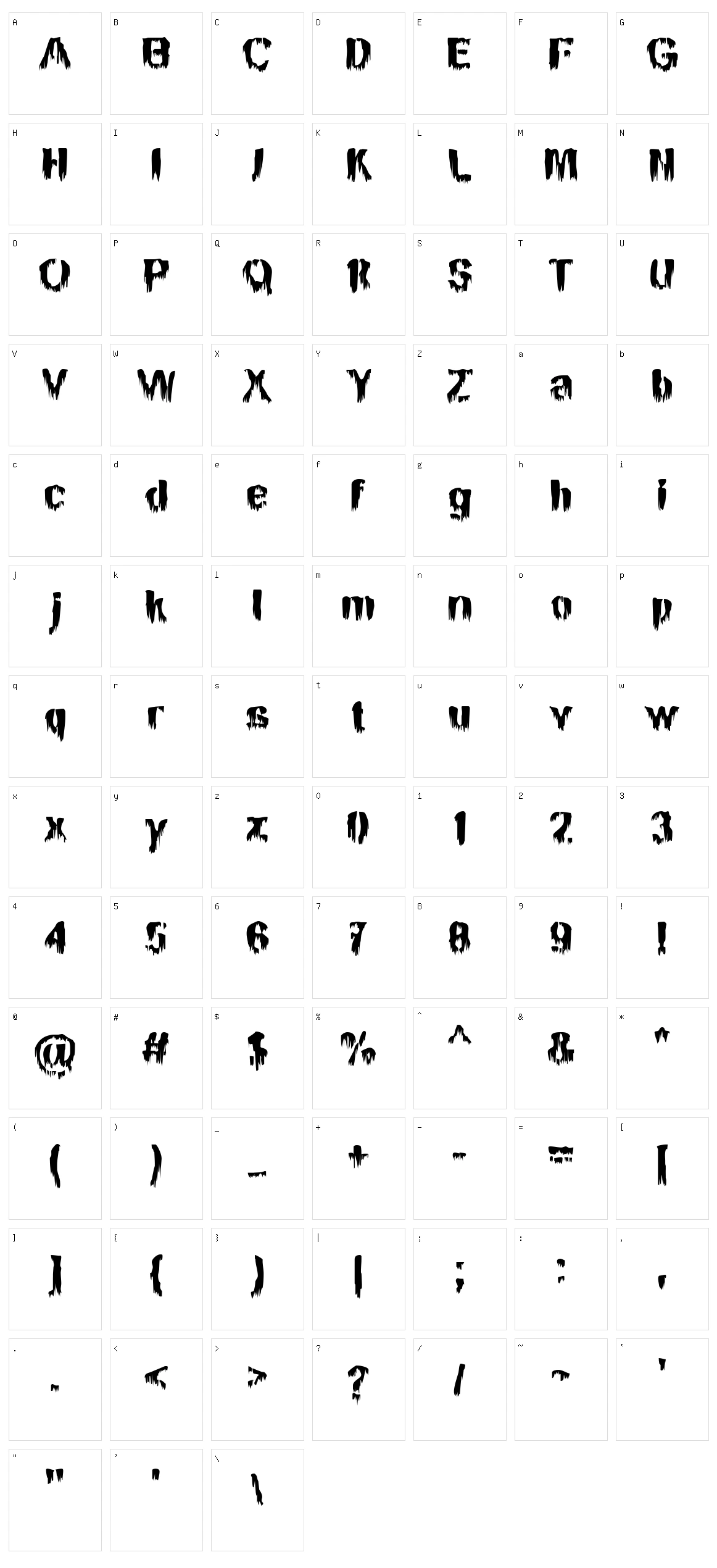
The free font BN Manson Nights is carefully designed by Ben's Fonts, showcasing a thoughtful balance of creativity and usability and falls under the Horror font style. When you download the ZIP file, it contains only 41.09 KB of font files, making it lightweight and quick to download. Please review the license details below to understand permitted usage and distribution rights. If license information is not available, we recommend using this font for personal projects only or contacting the author directly for commercial usage permissions.